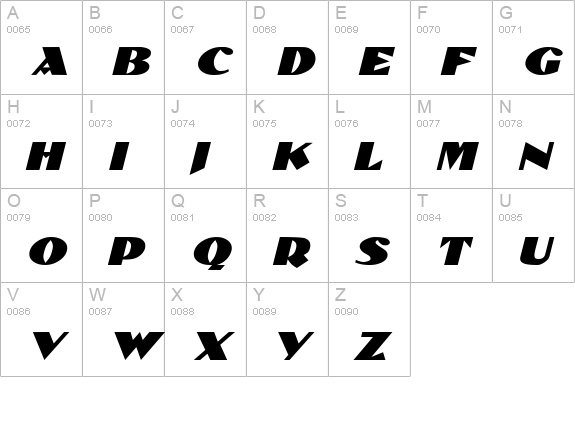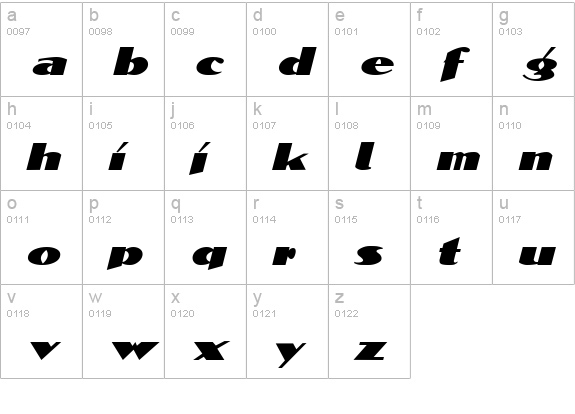
BlockCalligraphyExtended Italic Font Details
BlockCalligraphyExtended Italic is a distinctive, italic variant in the BlockCalligraphyExtended typeface family \xE2\x80\x94 well suited to design and typography projects.
BlockCalligraphyExtended Italic is a stunning and elegant font that combines the boldness of block letters with the graceful curves of calligraphy. Its dynamic slant and elongated design give it a unique and eye-catching look that is perfect for adding a touch of sophistication to any project. Whether you're designing invitations, posters, or branding materials, this font will elevate your work to the next level. The flowing strokes and intricate details of BlockCalligraphyExtended Italic make it a versatile choice for both formal and creative designs. Its italicized style adds a sense of movement and energy, making it ideal for projects that need a touch of flair. With its bold yet graceful appearance, this font is sure to make a statement and leave a lasting impression on your audience. Best of all, BlockCalligraphyExtended Italic is available for free download at FontsMarket.com. Simply visit the website to access this stunning font and start using it in your projects today. Don't miss out on the opportunity to add this beautiful and versatile typeface to your design arsenal. Download BlockCalligraphyExtended Italic now and let your creativity shine!